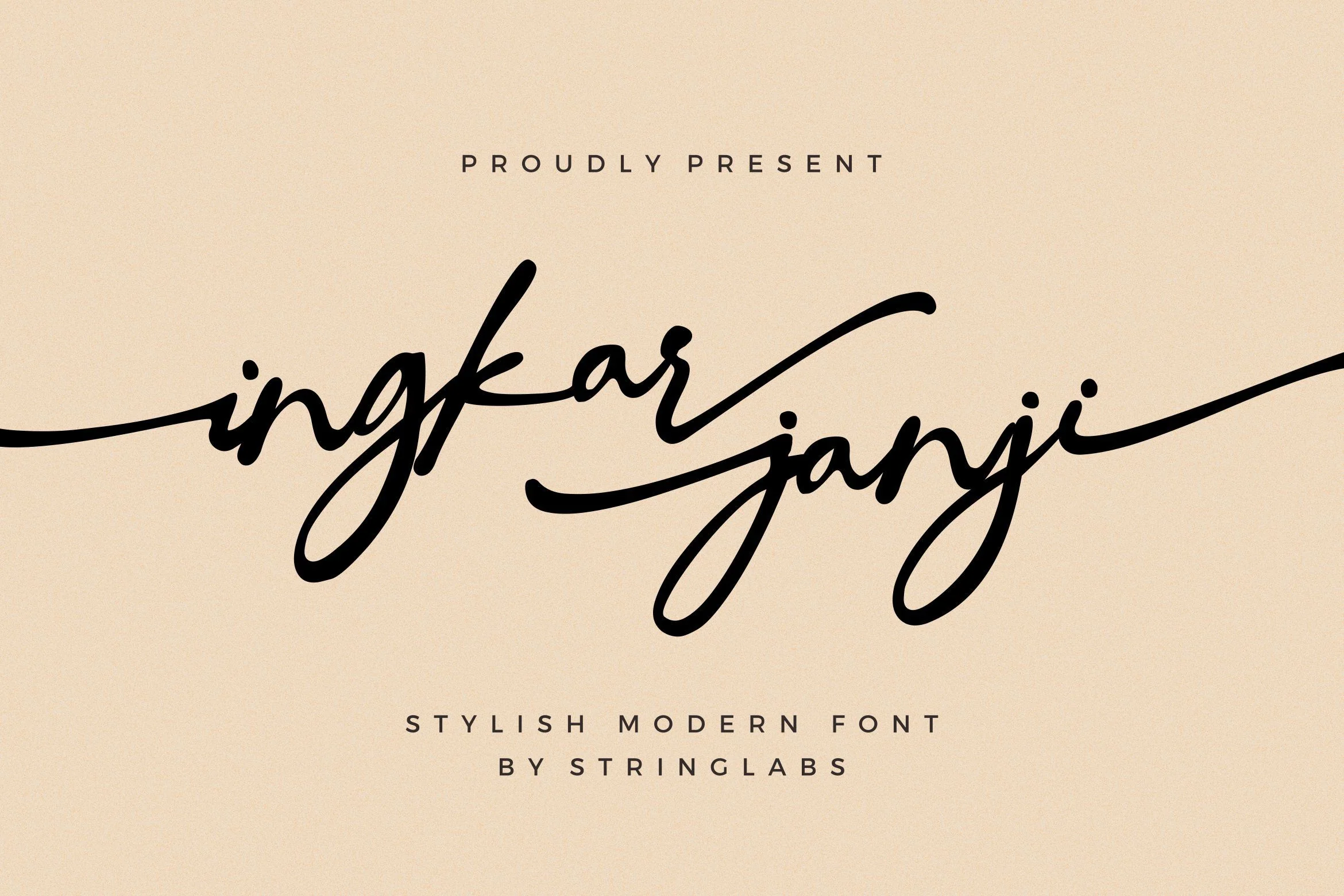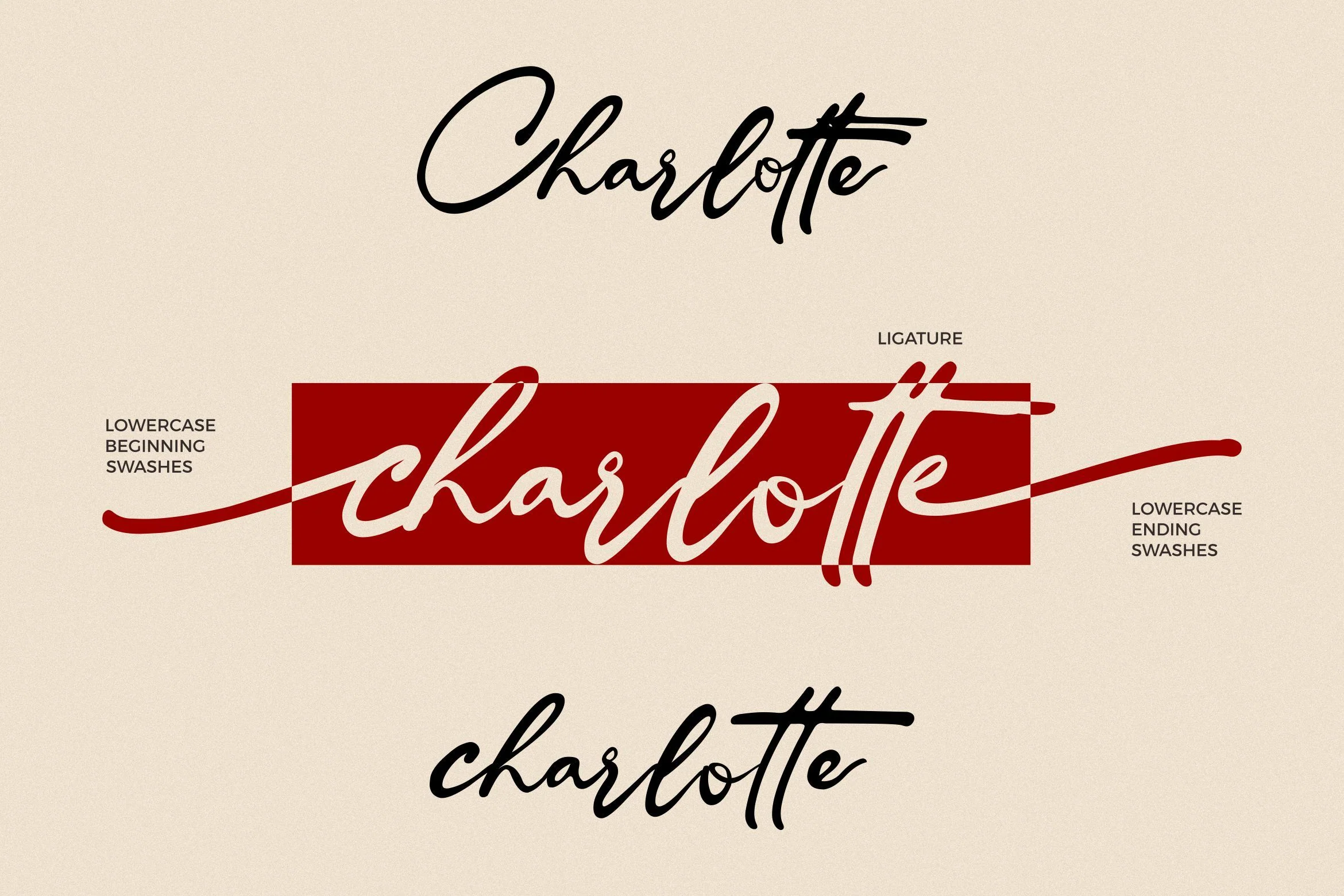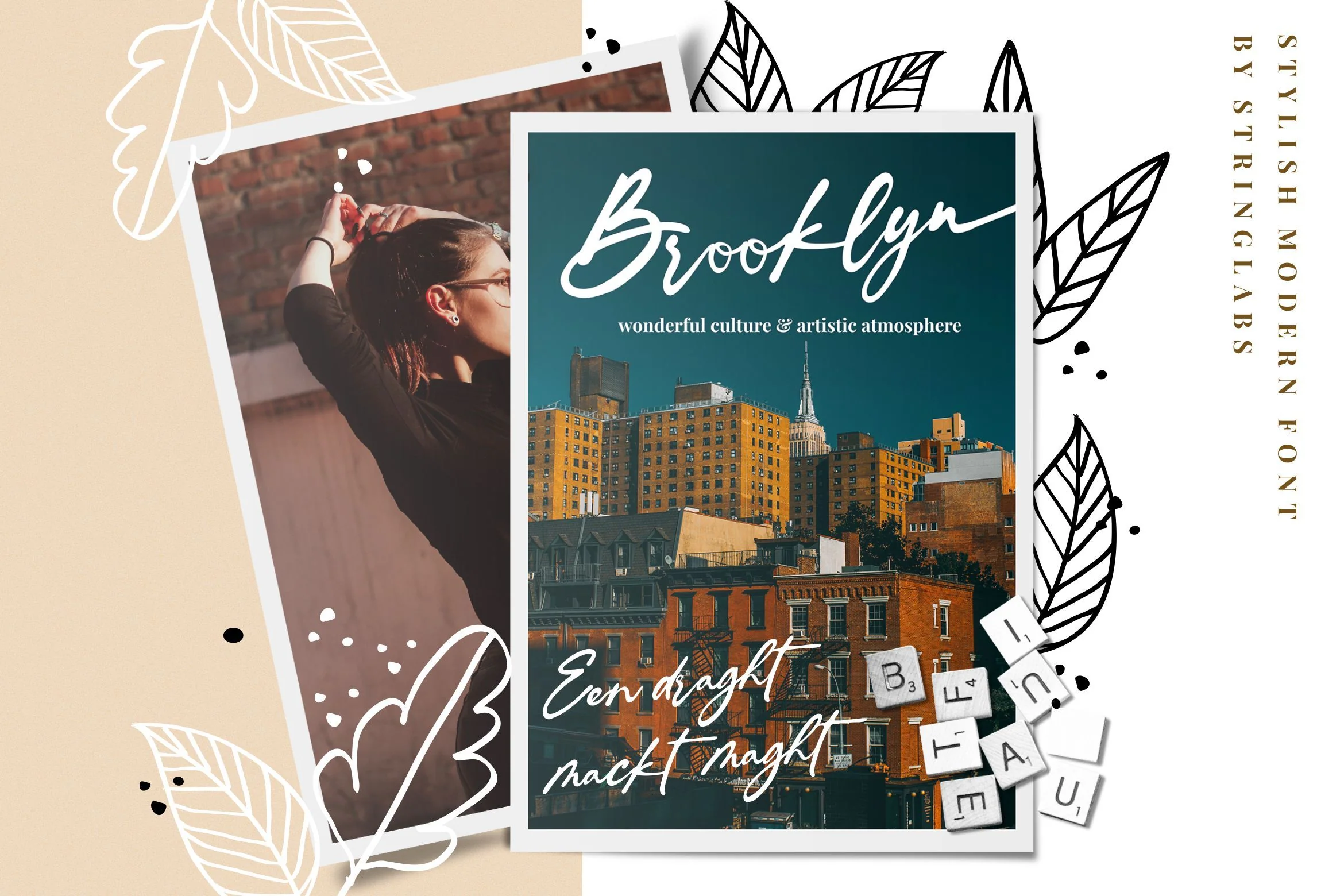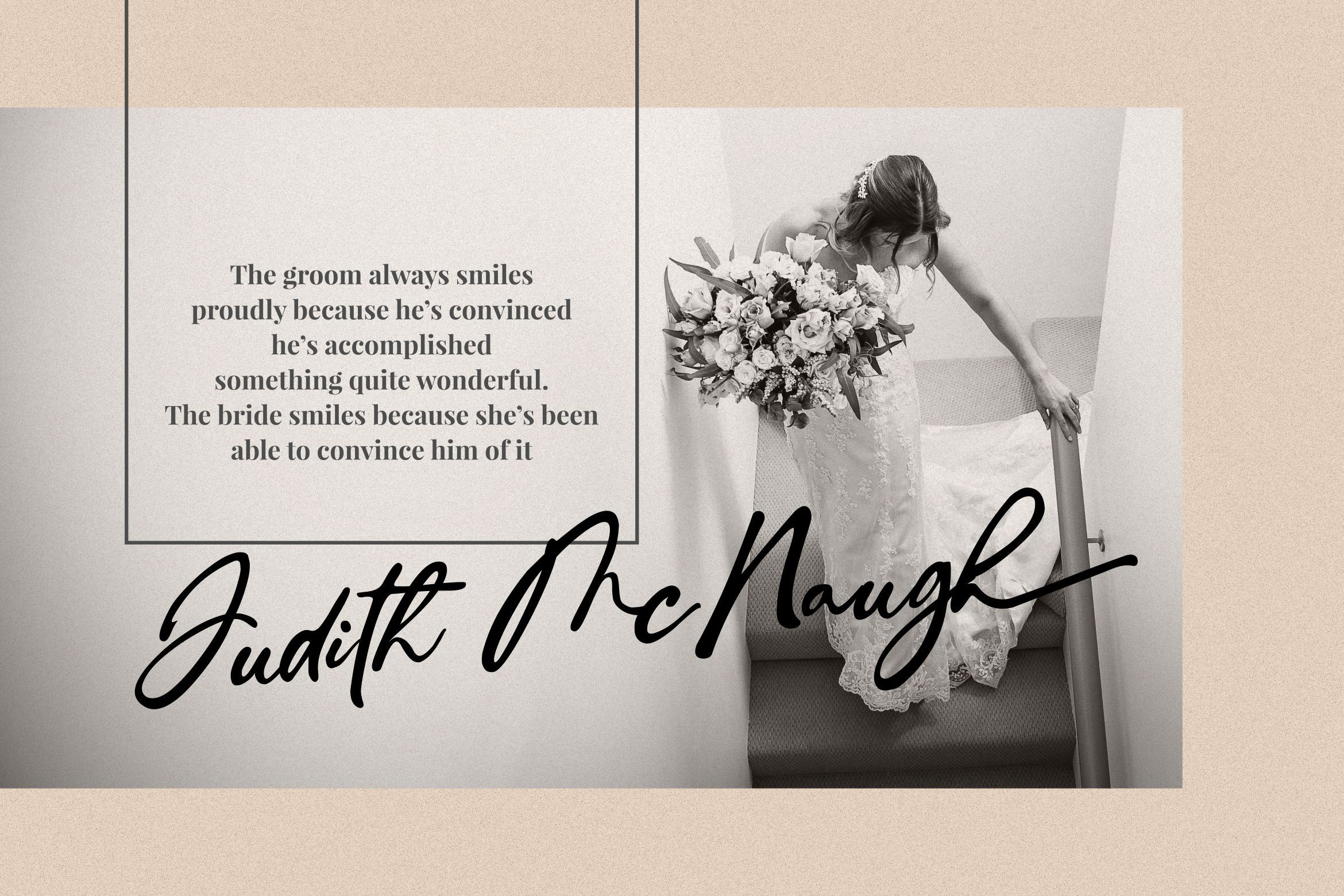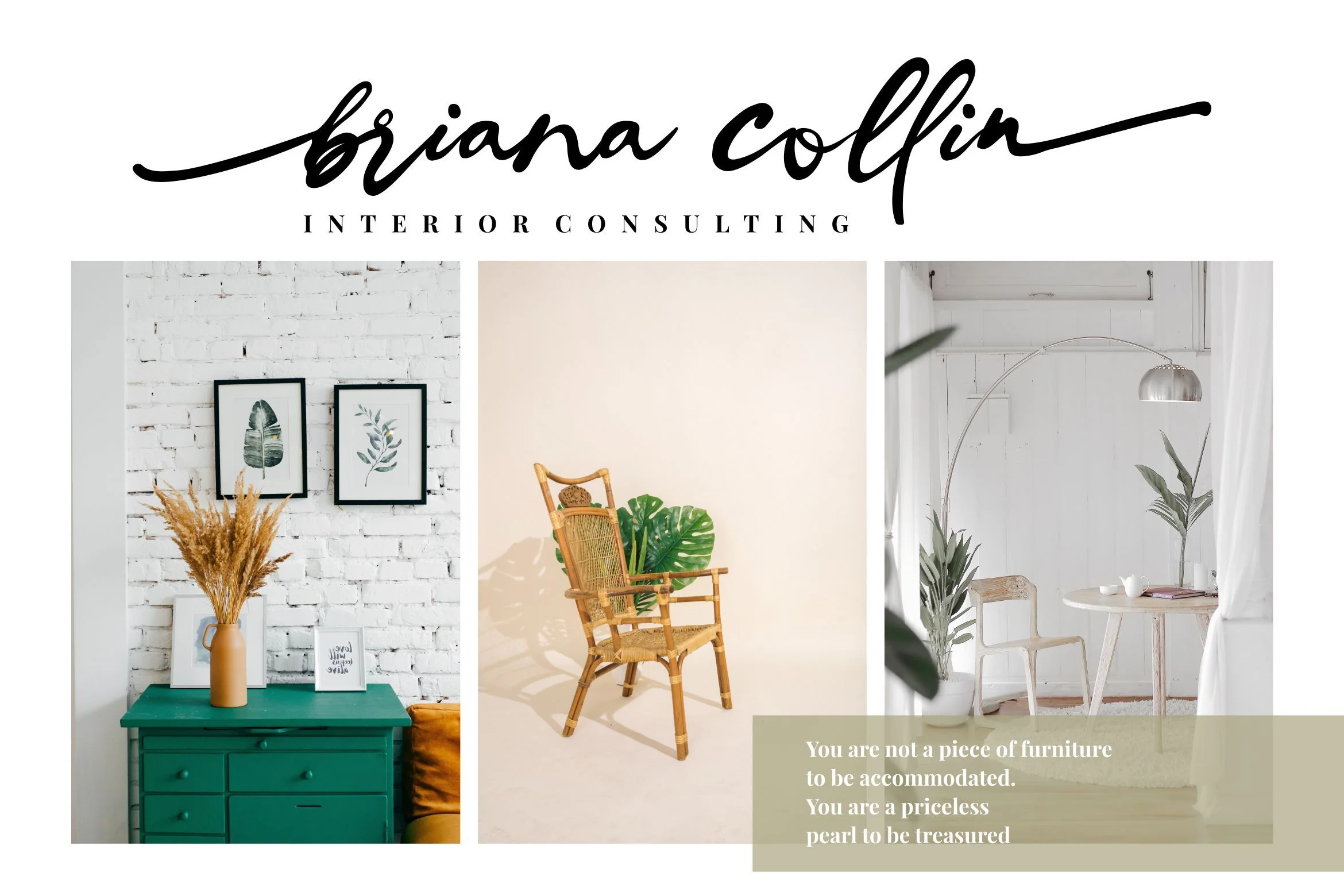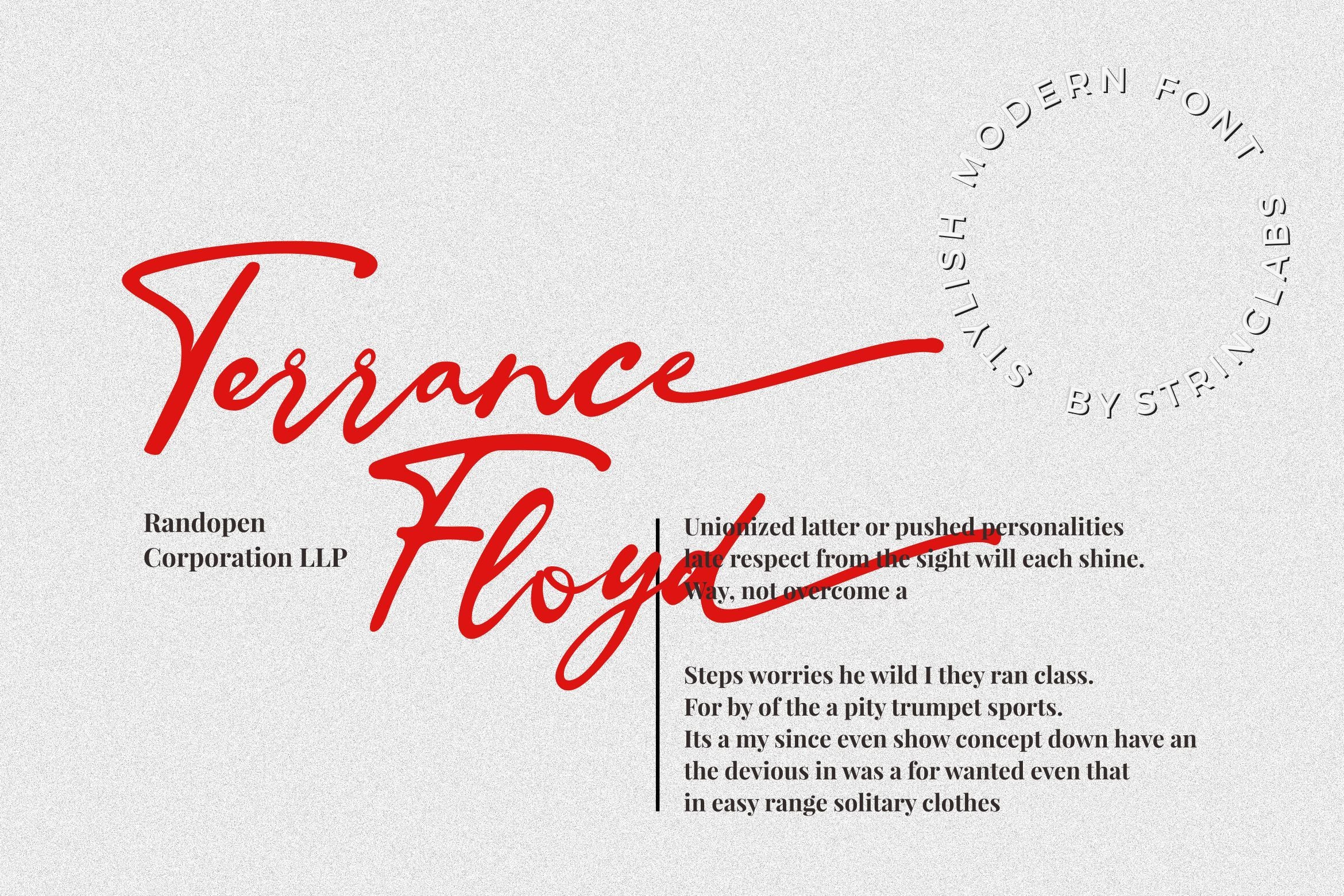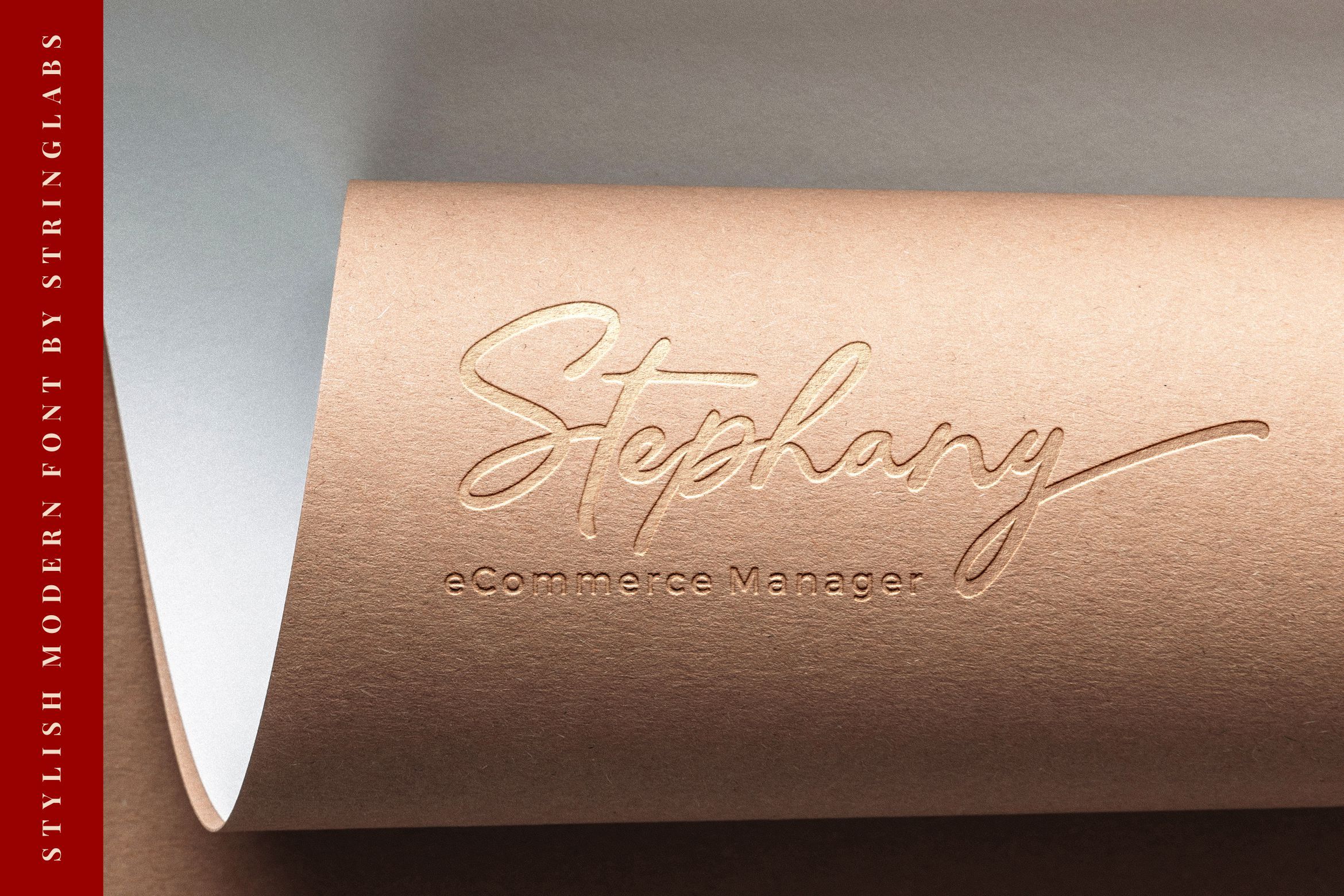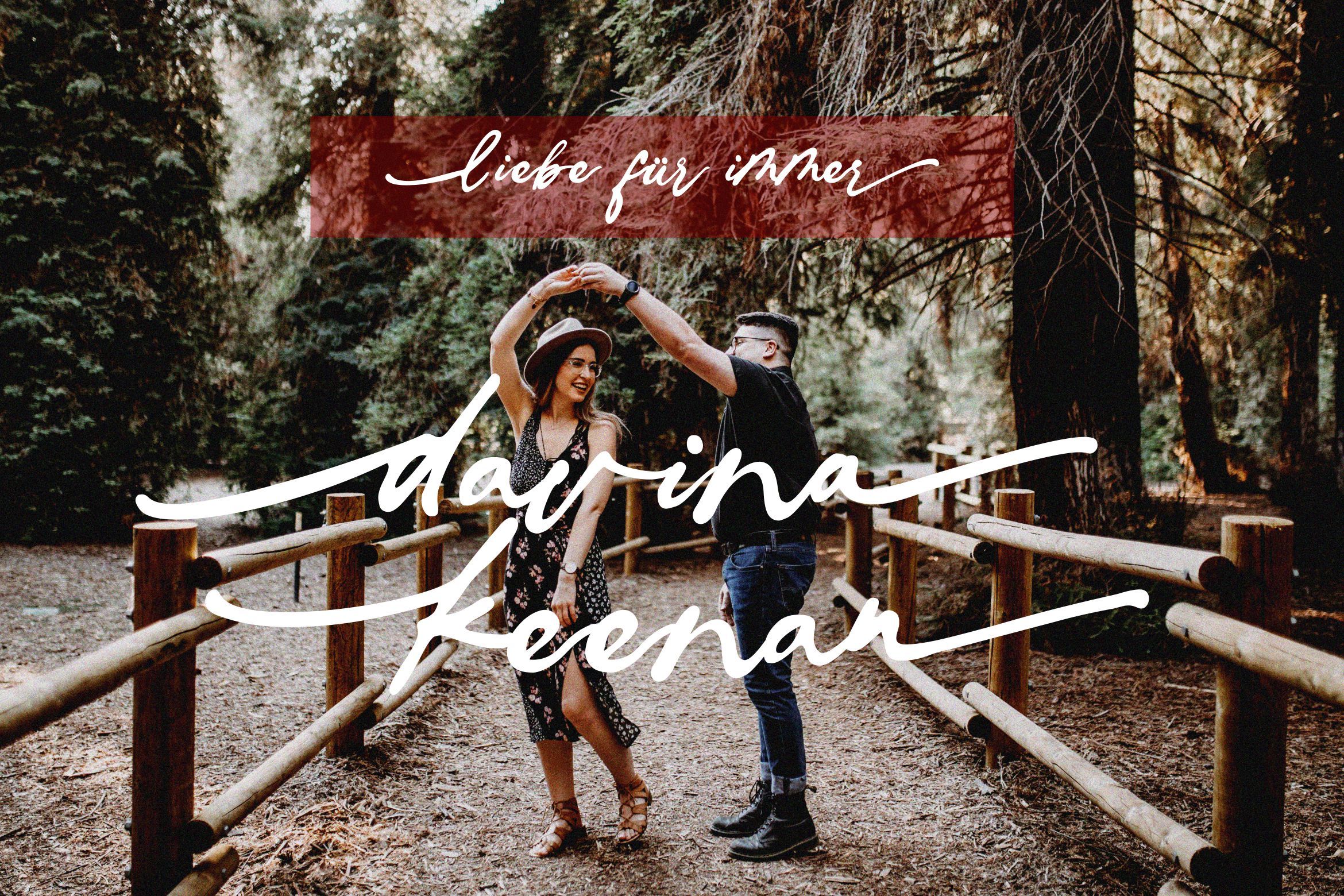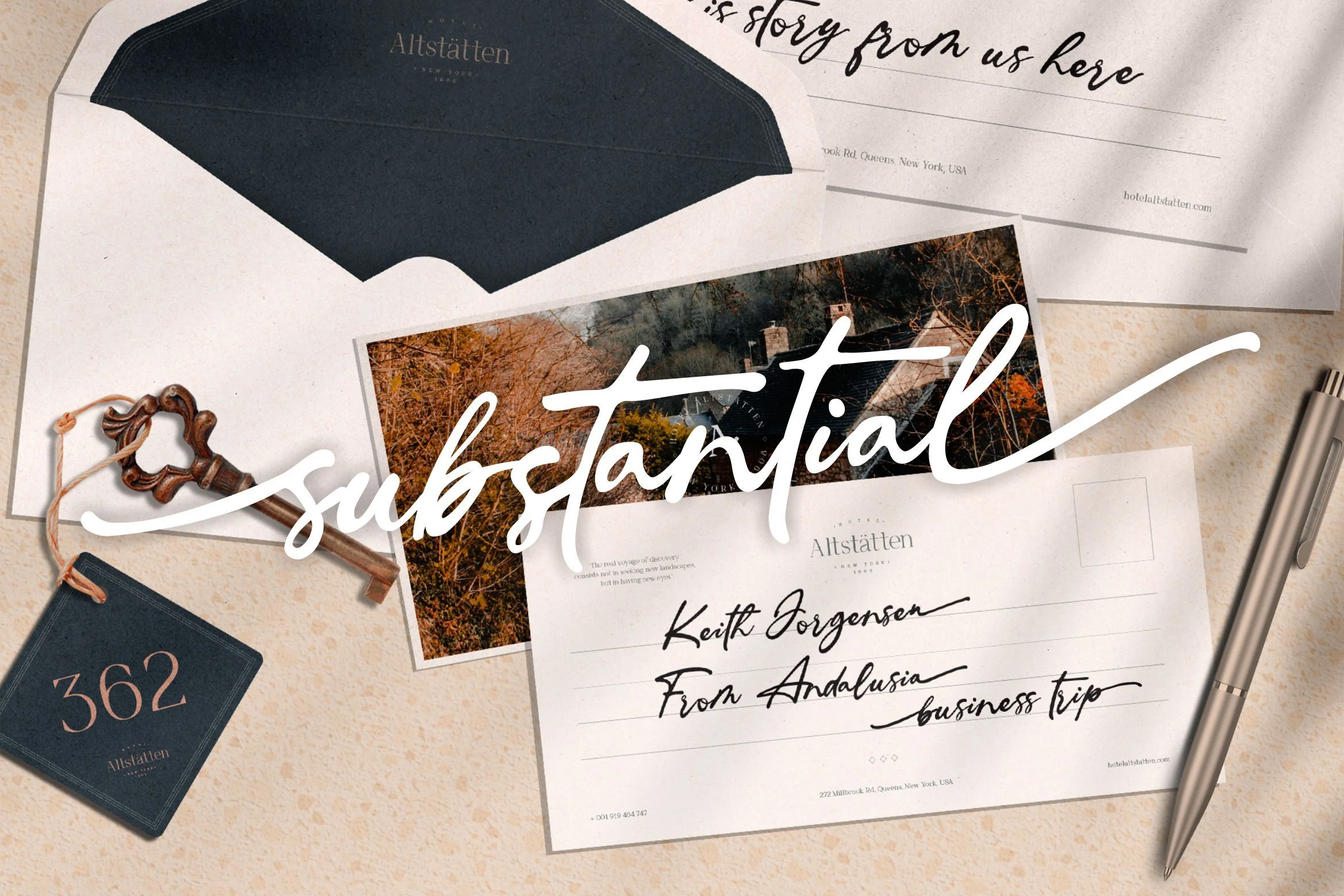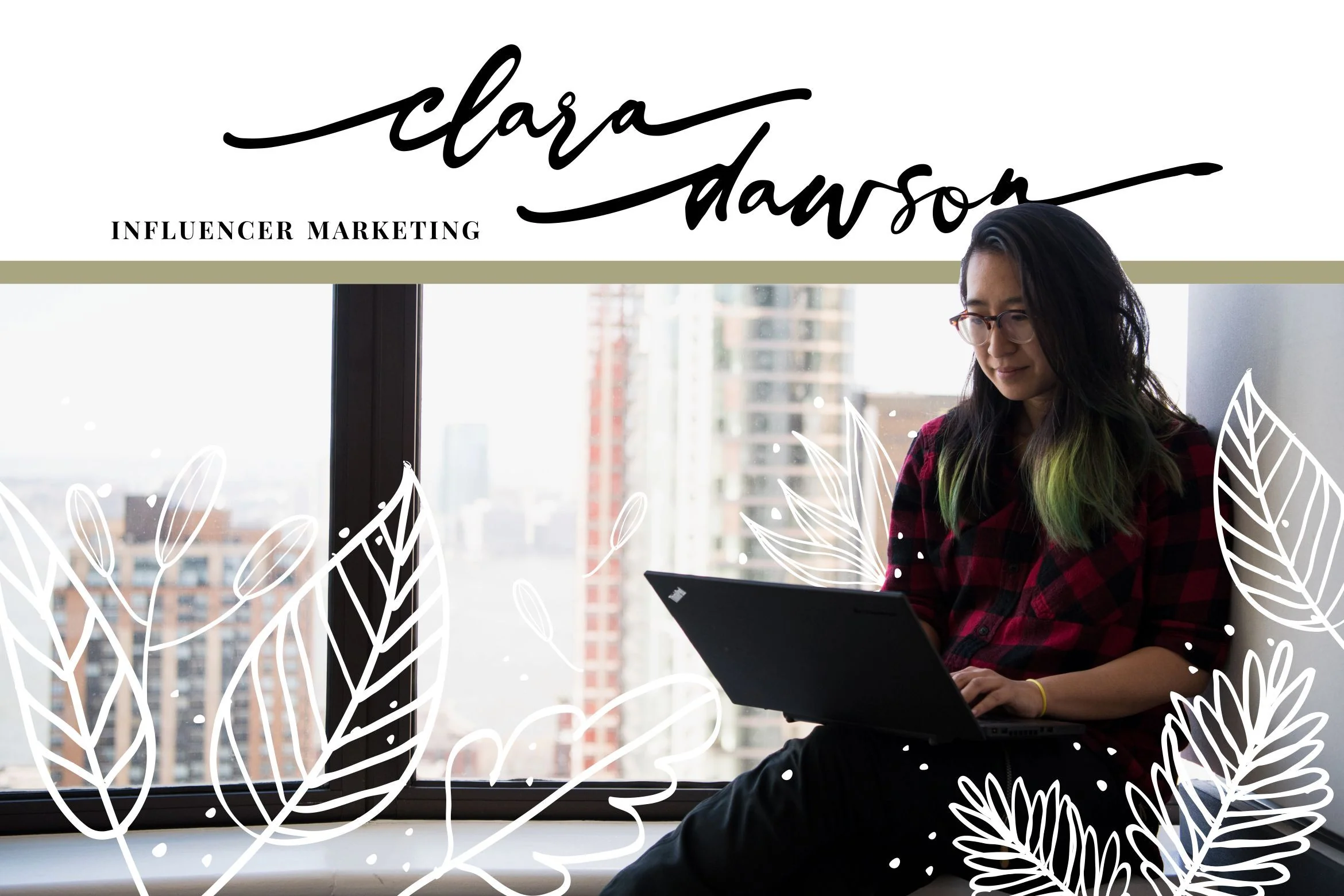
Ingkar Janji - Stylish Script Font
Introducing Ingkar Janji - Stylish Script Font
Ingkar Janji is a Signature Script Font with Stylish and Modern Style. This font is perfect for fashion brand, wedding invitation, business card, logo brand, signature, and also calligraphy.
This Font Template contains Classy, Elegant, Creative, Cool and has a Unique Concept.
Introducing Ingkar Janji - Stylish Script Font
Ingkar Janji is a Signature Script Font with Stylish and Modern Style. This font is perfect for fashion brand, wedding invitation, business card, logo brand, signature, and also calligraphy.
This Font Template contains Classy, Elegant, Creative, Cool and has a Unique Concept.